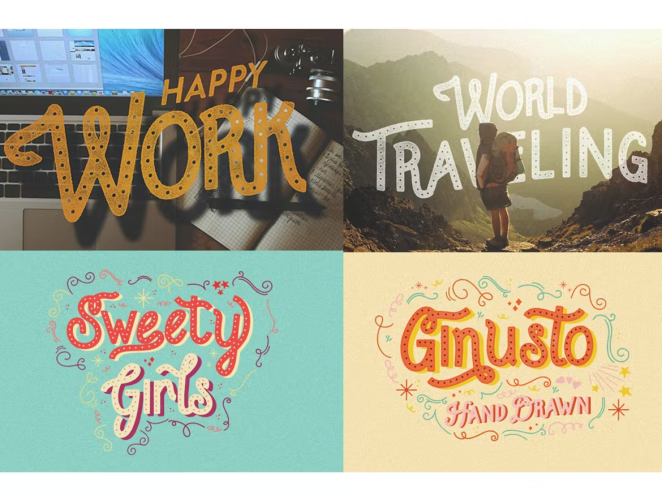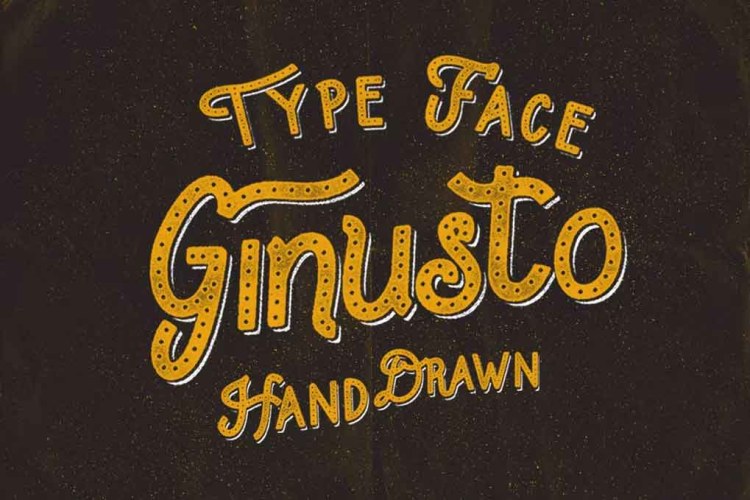
Ginusto Family Font
This is Ginusto Family typeface font made by hand. with alternate characters and ornaments that will provoke your creativity and make it easier to make the awesome work.…
This is Ginusto Family typeface font made by hand. with alternate characters and ornaments that will provoke your creativity and make it easier to make the awesome work.
Where Ginusto Family Font works best
A short phrase in Ginusto Family Font carries warmth that a typeset sans cannot fake; keep the rest of the card plain.
Chalkboard-style headings in Ginusto Family Font make a menu feel hand-made. Keep the dish descriptions in a simple face so prices stay readable.
One line of Ginusto Family Font over a photo is enough; the script carries the tone and the caption does the work.
What kind of work does Ginusto Family Font suit?
It sits in the Script And Handwritten group and reads as handwritten, script, script and handwritten, typeface. That makes it a candidate wherever those qualities help: headings, packaging, social graphics and brand work. Set it at the size you plan to use before deciding.